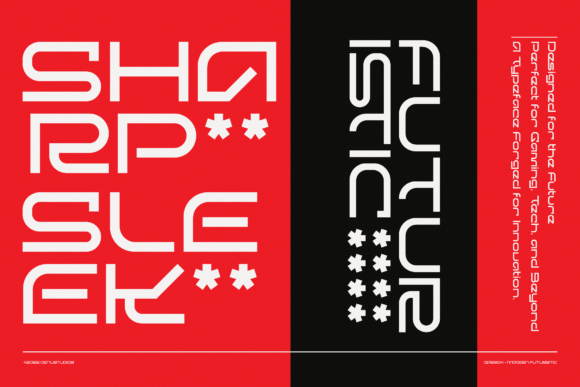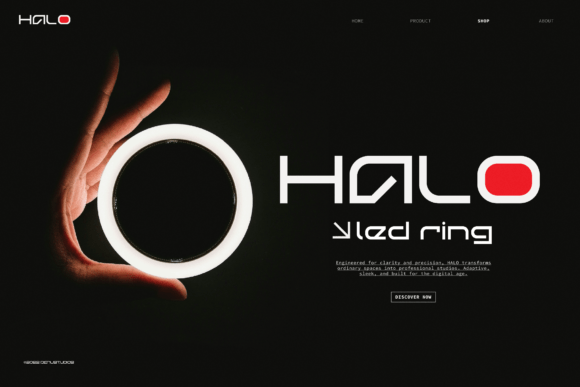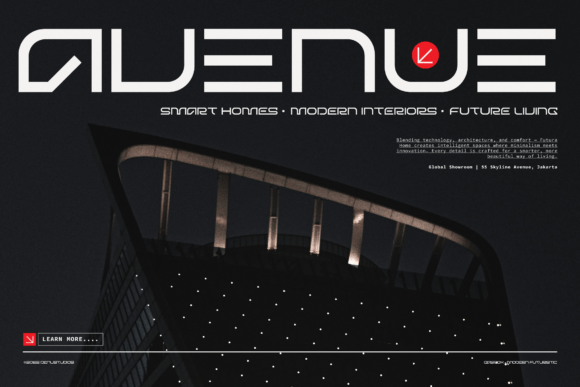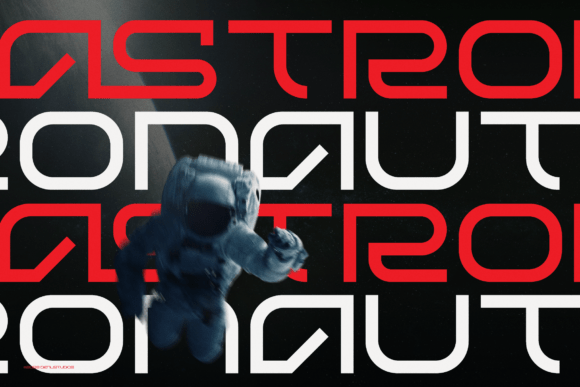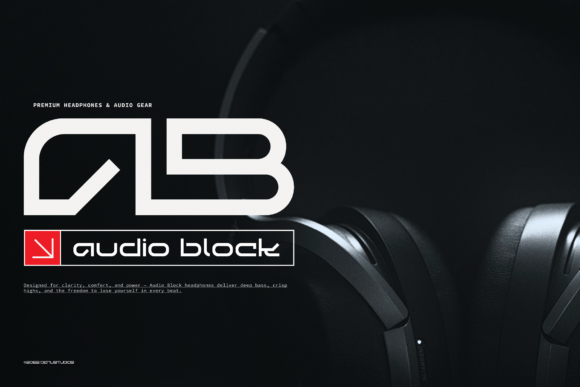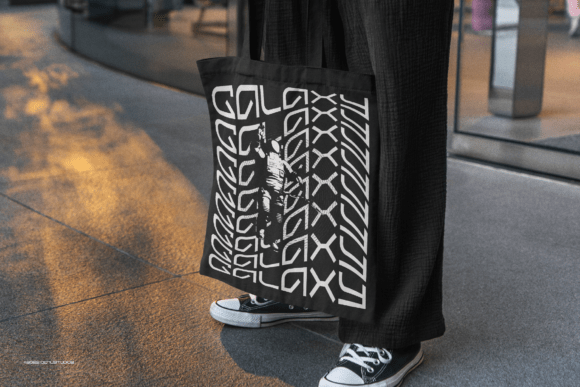
I still remember the frustration of working on a project, hours pouring into every detail, only to hit a roadblock: finding the right font. My client wanted something bold, modern, and cutting-edge for their new sports brand. I scoured the internet, tried countless fonts, but nothing seemed quite right. That was until I stumbled upon Gas Rox – a game-changer in the world of display fonts.
First Impressions: A Bold and Modern Display Font
Gas Rox is a bold modern display font that exudes a futuristic, high-tech edge. Its sharp geometric forms, sleek curves, and strong structure make it perfect for designs that demand a cutting-edge and professional look. Whether you’re working on logos, sports branding, posters, automotive themes, technology projects, or striking headlines, Gas Rox delivers power and innovation in every letter.
What I Love About Gas Rox
- ✨ Versatility: With over 250+ glyphs, Gas Rox offers flexibility and creativity for standout typography.
- ✅ Ease of use: The font is incredibly easy to work with, even for those who aren’t typography experts.
- 💥 Impactful: Gas Rox makes a statement, grabbing attention and leaving a lasting impression.
- 📈 Scalability: The font remains crisp and clear, even at large sizes.
Honest Review: The Not-Perfect-but-Almost Section
While Gas Rox is an exceptional font, there are a few minor quirks to consider:
- 🤔 Limited suitability for body text: Due to its bold nature, Gas Rox might not be the best choice for lengthy paragraphs.
- ⚠️ Requires careful kerning: As with any font, some manual kerning might be necessary to achieve optimal results.
The Story Behind Gas Rox
Gas Rox was designed with the goal of creating a font that embodies the spirit of innovation and forward-thinking. Its designer aimed to craft a typeface that would be both visually striking and versatile, capable of being used across various industries and applications. Through a meticulous process of refinement and testing, Gas Rox was born – a bold, modern display font that is redefining the boundaries of typography.
| What makes Gas Rox suitable for technology projects? | Gas Rox’s futuristic and high-tech edge, combined with its clean and geometric design, make it an ideal choice for technology projects. |
| Can I use Gas Rox for body text? | While Gas Rox can be used for short paragraphs, it’s primarily designed for display purposes and may not be the best choice for lengthy body text. |
| Is Gas Rox easy to read? | Yes, Gas Rox is designed to be clear and legible, even at large sizes. |